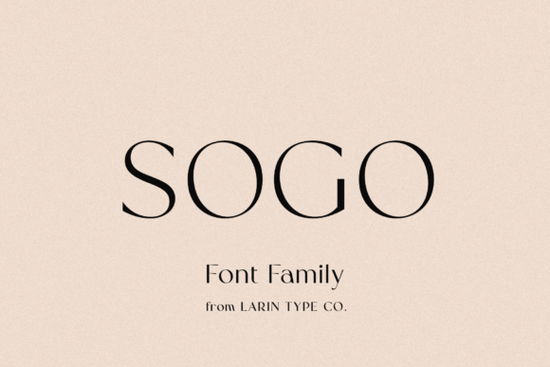
If you're looking for a clean, versatile sans serif font that works just as well on a handmade greeting card as it does on a boutique Shopify banner, Sogo Font is worth your attention. It’s not overly delicate so it holds up at small sizes and not too bold, so it never overwhelms your layout. Designed with balance in mind, Sogo delivers quiet confidence: the kind of typeface that supports your message without demanding all the attention.
When does Sogo Font work best?
Sogo shines in projects where clarity and calm elegance matter most. Think wedding stationery, minimalist brand logos, Instagram quote graphics, or product labels for natural skincare lines. Because its letterforms are evenly weighted and carefully spaced, it reads smoothly both on screen and in print even at 10 pt on a business card. Unlike some ultra-thin sans serifs that vanish on low-res devices, Sogo maintains legibility without sacrificing grace.
It’s especially helpful if you’ve tried other elegant fonts only to find they either look too fragile (fading in light mode) or too rigid (lacking warmth). Sogo sits comfortably in the middle: soft curves, open counters, and consistent stroke contrast that feels intentional not trendy.
How does it compare to similar fonts on Creative Fabrica?
Unlike display fonts built for headlines only, Sogo includes full language support (Latin-based character sets), standard ligatures, and OpenType features like stylistic alternates meaning you can fine-tune details like the lowercase “a” or “g” depending on your project’s tone.
Who uses Sogo Font and why?
Small business owners use it to unify their visual identity: one font family handling everything from email headers to packaging tags. Print-on-demand sellers appreciate how cleanly it scales across mugs, tote bags, and wall art no pixelation, no awkward spacing. Crafters choose it for hand-lettered digital mockups because it pairs easily with watercolor textures or linen backgrounds.
One thing to keep in mind: while Sogo works beautifully in most design software, it doesn’t include variable font axes (like weight or width sliders). So if you’re deep into Figma auto-layout systems that rely on variable fonts, you’ll need to manage weights manually using the included Light, Regular, and Bold variants.
Where can you see real examples?
A quick checklist before downloading
- ✅ You need a readable, elegant sans serif for both digital and print use
- ✅ Your projects range from branding to crafts to POD products
- ✅ You prefer fonts with consistent spacing and clear hierarchy
- ❌ You don’t need variable font features or extensive multilingual support (e.g., Arabic or Cyrillic)
If those match your needs, Sogo Font is likely a practical, long-term addition to your toolkit not just another download you try once and forget.